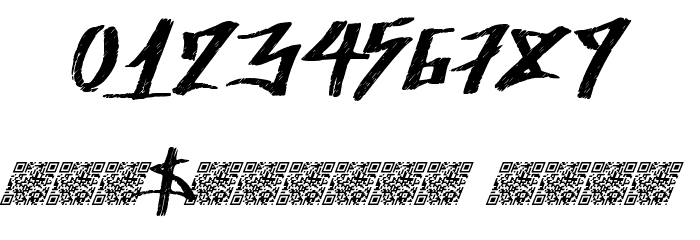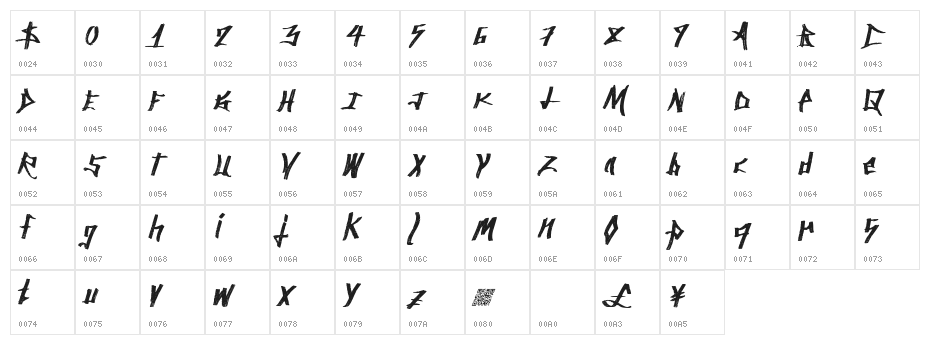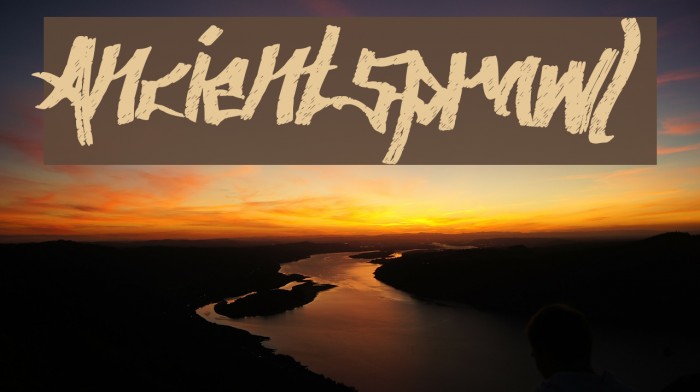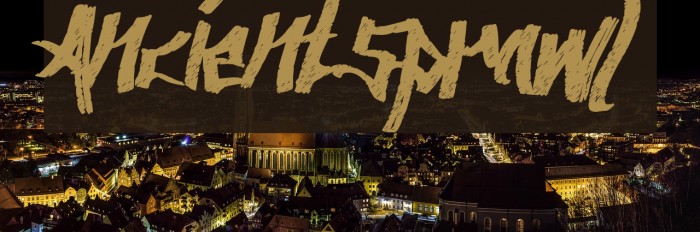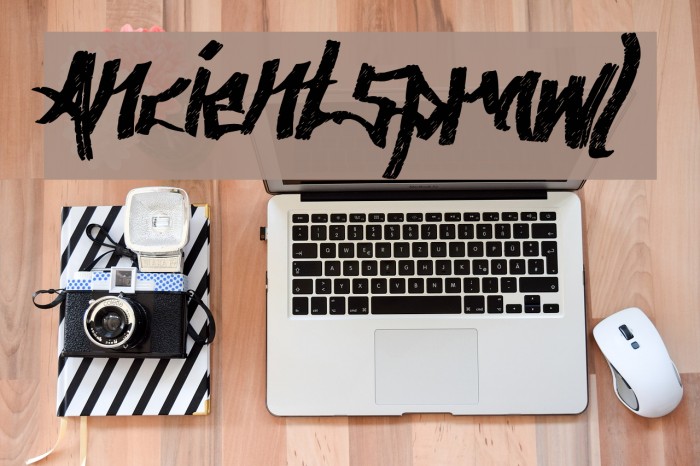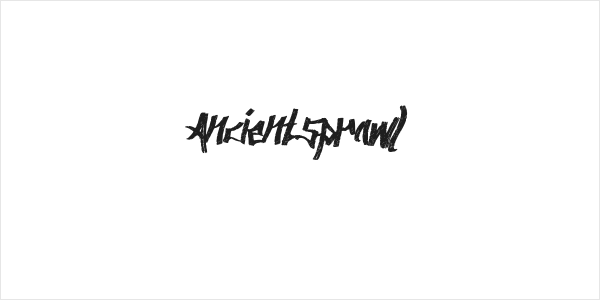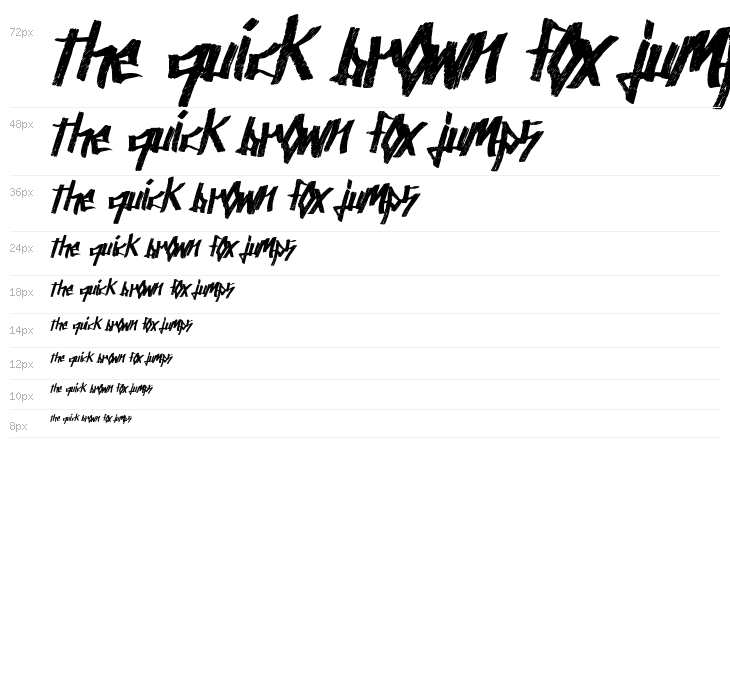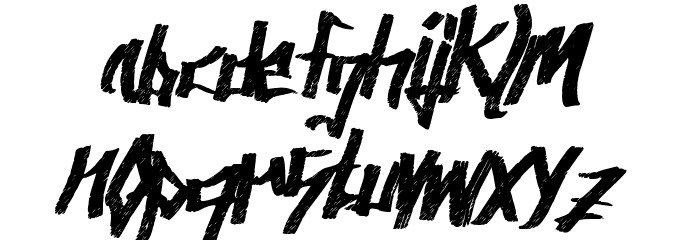
AncientSprawl Font
AncientSprawl Description
This font exudes a raw, expressive energy with its bold, brush-like strokes and dynamic, irregular forms. Each character appears hand-drawn, with a sense of movement and spontaneity that suggests a rebellious, artistic flair. The uppercase letters are particularly striking, with sharp angles and varying line thicknesses that create a sense of urgency and intensity. The lowercase letters maintain this energetic style, though they are slightly more restrained, offering a balance between readability and artistic expression. Numbers and special characters follow the same aesthetic, ensuring a cohesive look across all elements. This font is perfect for projects that require a bold statement or an artistic touch, such as album covers, posters, or branding for creative industries.
| Overall Style | Artistic, Rebellious |
| Proposed Projects | Ideal for album covers, artistic posters, and creative branding. |